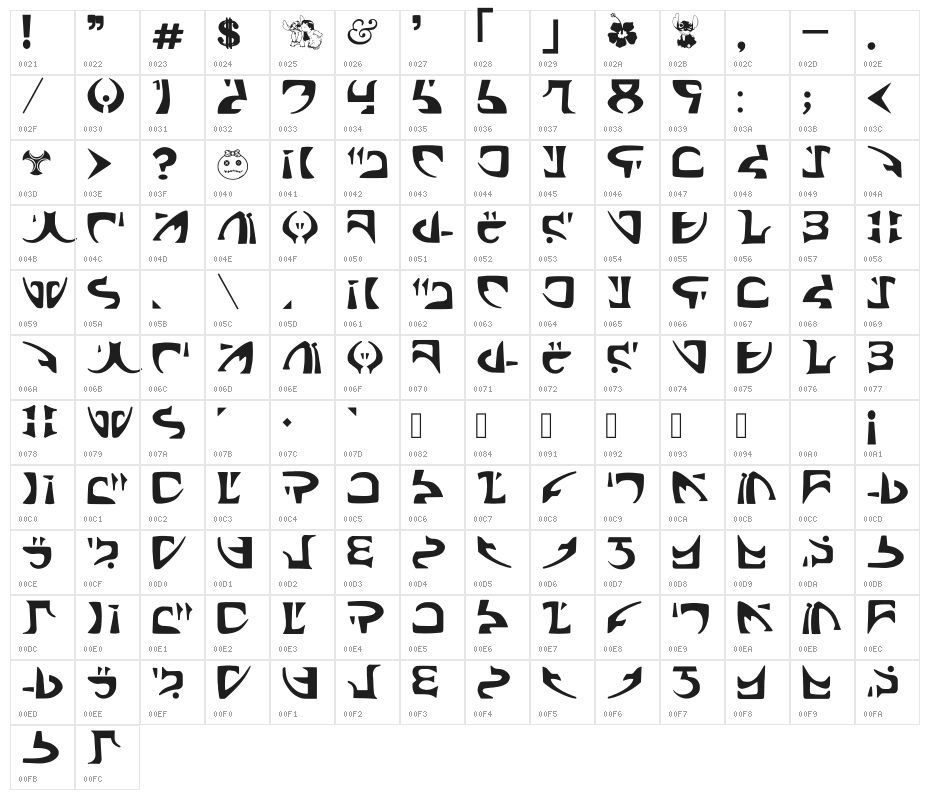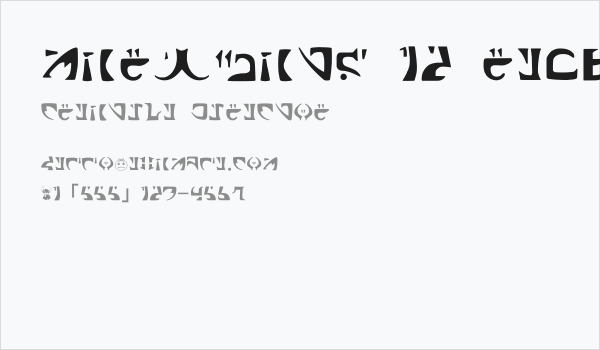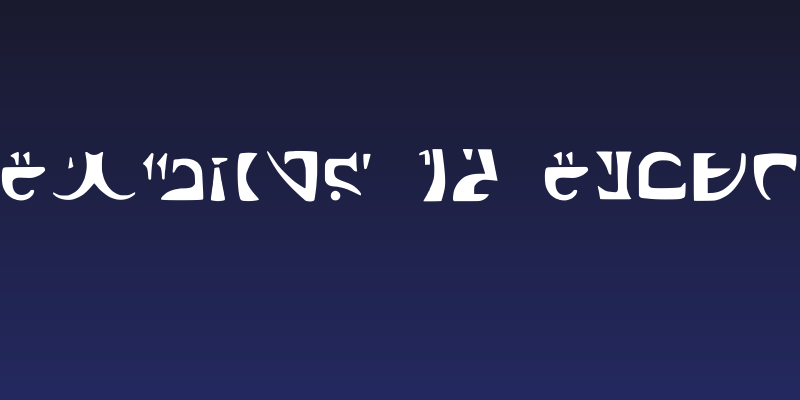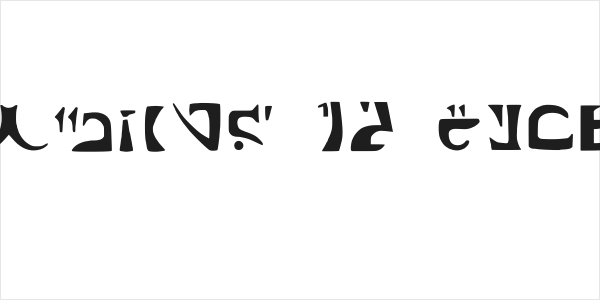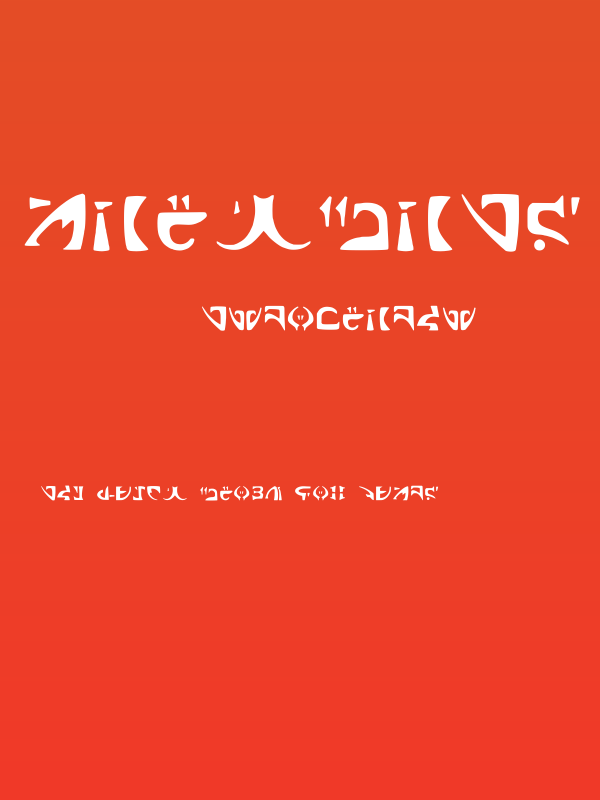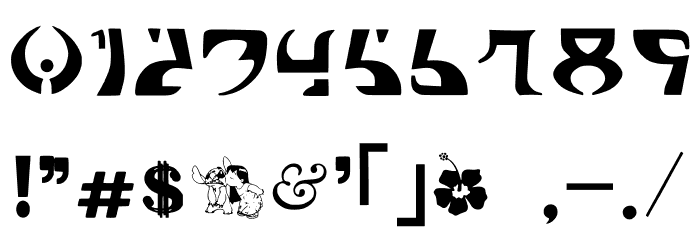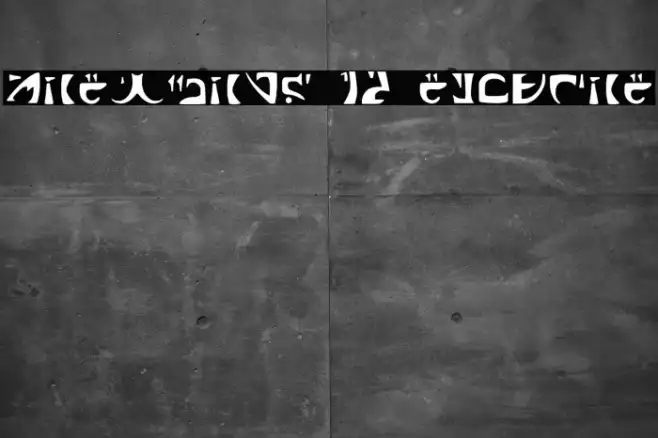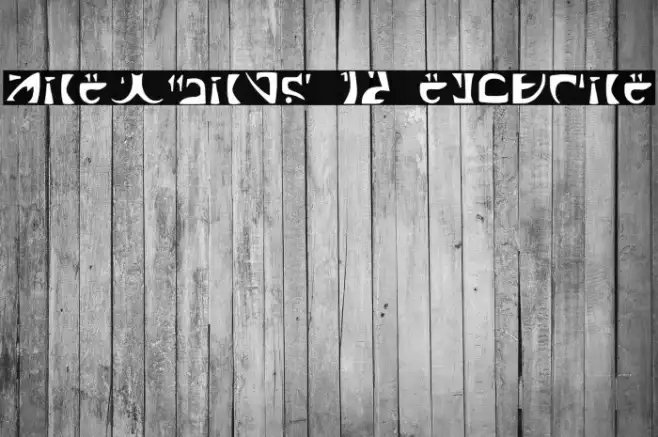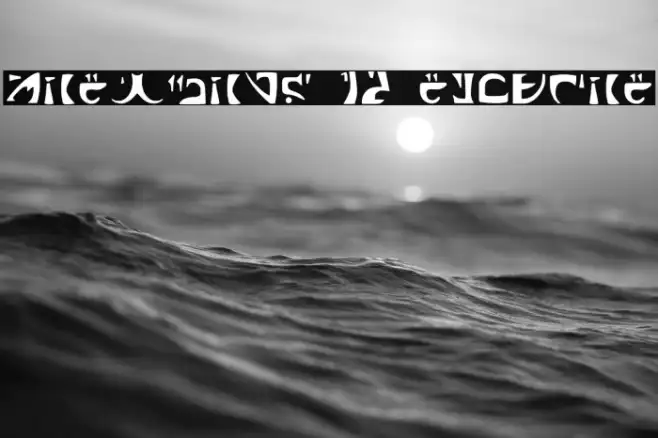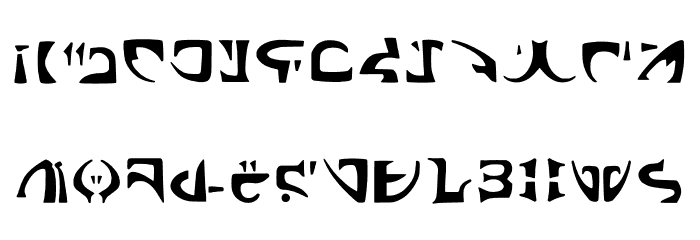
Markbats 12 Regular Font
Markbats 12 Regular Description
This font features a highly stylized and abstract design, reminiscent of ancient scripts or alien languages. The characters are composed of bold, angular shapes with a futuristic and cryptic appearance. Each letter and symbol is unique, with varying thickness and sharp edges that create a sense of mystery and intrigue. The numbers and special characters follow the same design principles, adding to the overall cohesive look. This font is not meant for readability but rather for decorative purposes, making it ideal for projects that require a distinct and unconventional aesthetic.
| Overall Style | Futuristic, Cryptic |
| Use Case | Logos, Posters, Decorative elements |
| Proposed Projects | Ideal for sci-fi themed designs, video game interfaces, movie posters, or any project needing a mysterious and unique look. |